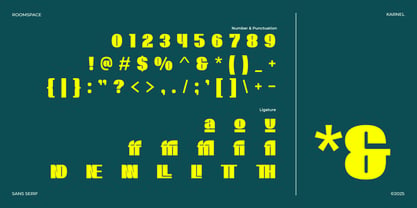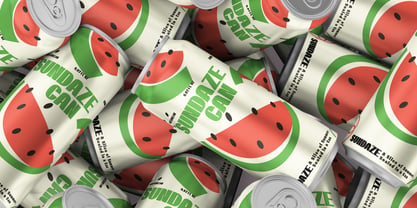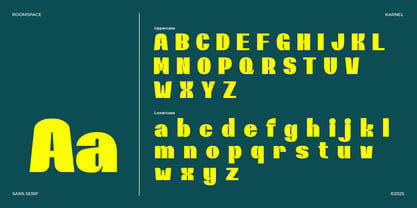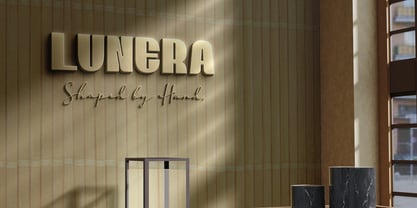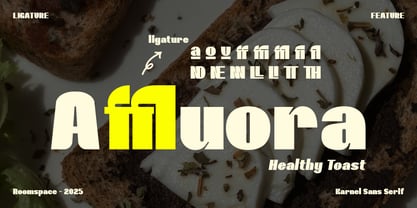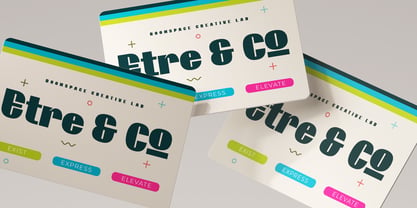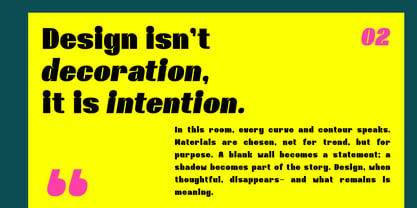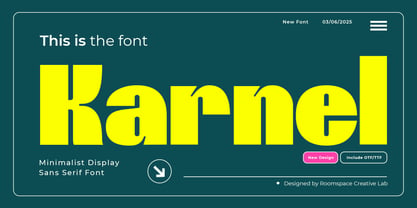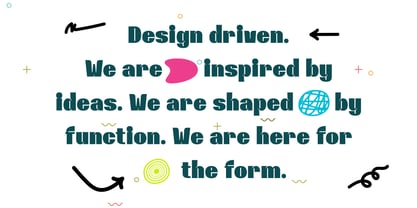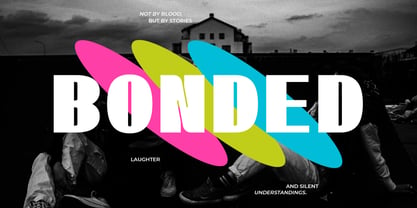
Karnel
by Jafar07
The Karnel Font Family was designed by Bakhrudin Ja'far and published by Jafar07. Karnel contains 2 styles and family package options. More about this family
Karnel a bold minimalist sans serif display font designed to make a powerful visual statement. Karnel is perfect for logo design, branding, editorial headlines, tech interfaces, and modern creative projects.
Crafted with clean lines and sharp geometry, Karnel balances retro boldness with a sleek futuristic edge. This typeface is ideal for startups, tech brands, apps, posters, and impactful visual design.
Designers: Bakhrudin Ja'far
Foundry: Jafar07